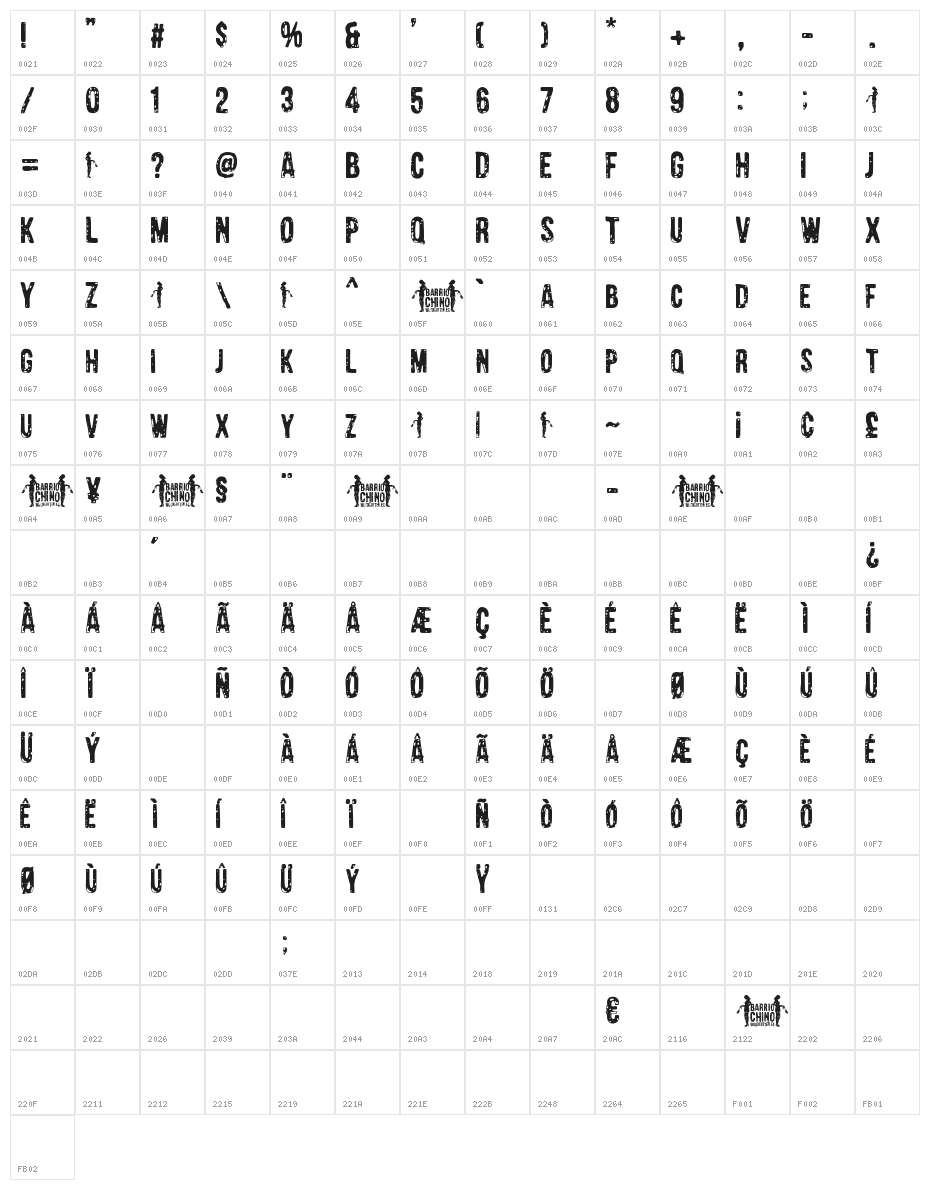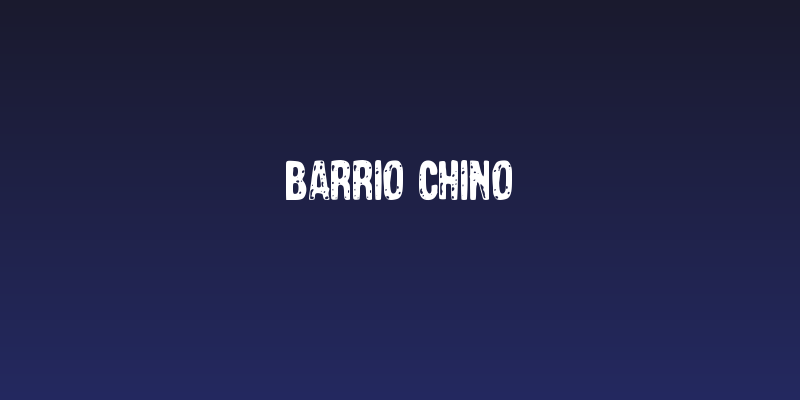
Barrio Chino Font
Barrio Chino Description
This font features a bold, playful design with a decorative style. Each character is filled with unique, irregular dot patterns, giving it a whimsical and eye-catching appearance. The letters are uppercase and have a slightly rounded, blocky form, contributing to their bold presence. The numbers and special characters follow the same stylistic approach, ensuring consistency across the font. This font is ideal for projects that require a fun and engaging visual element, such as children's books, posters, or event invitations. Its distinctive style makes it stand out, capturing attention with its creative and lively design.
| Proposed Projects | Ideal for children's books, playful posters, event invitations, and creative branding. |